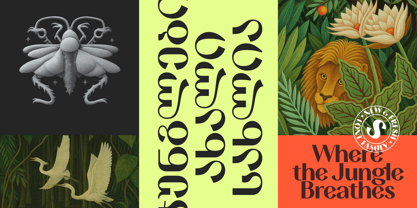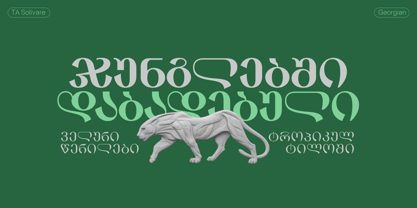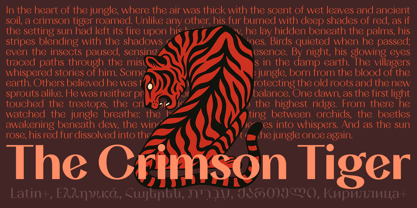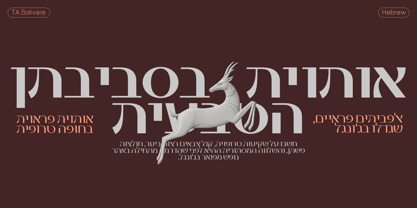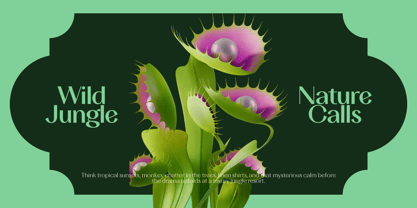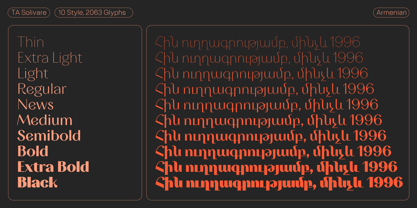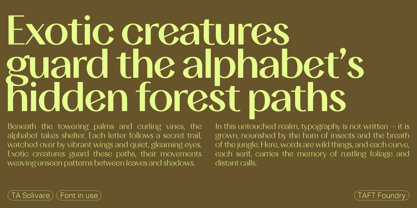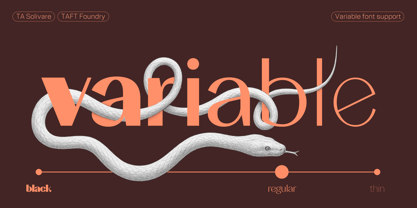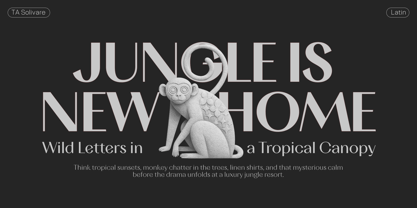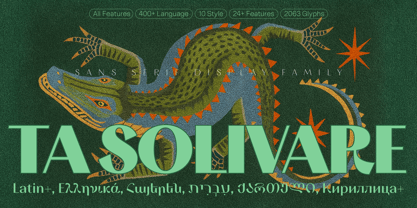
TA Solivare
by Tural Alisoy
The TA Solivare Font Family was designed by Tural Aliyev and published by Tural Alisoy. TA Solivare contains 11 styles and family package options.
TA Solivare is a high-contrast display typeface rooted in classical visual structure but stripped of traditional serif detailing. It features sharp angles, stable rhythm, and a clear sense of construction, making it ideal for prominent use in editorial headlines, brand identities, and cultural communication.
TA Solivare balances visual tension with restraint — offering a distinctive voice without excessive decoration. With six scripts and ten weights, it adapts well across multilingual and multidisciplinary contexts.
TA Solivare doesn’t try to be loud — but it stands firmly in place. Its tone is sharp, deliberate, and culturally adaptable. It’s not quite modern, not fully retro — but something quietly present in between. Its multi-script support gives it technical depth, while its visual rhythm adds just enough expression to make it memorable in use.
Opentype Features
– 10 styles (from Thin to Black)
– Support for 6 writing systems: Latin, Cyrillic, Greek, Hebrew, Georgian, Armenian
– 2063 glyphs
– OpenType features:
• locl — Localized Forms
• sinf — Scientific Inferiors
• sups — Superscript
• subs — Subscript
• numr — Numerator
• dnom — Denominator
• case — Case-Sensitive Forms
• pnum — Proportional Figures
• tnum — Tabular Figures
• ss01–ss15 — Stylistic Sets
• jalt — Justification Alternates
– Carefully hand-kerned
Recommended Use
– Branding & logotypes
– Editorial design (books, magazines, catalogs)
– Posters and cultural campaigns
– Art and museum identities
– Multilingual and global publishing
– Packaging and invitations
Language Support
– Latin + Latin Extended A & B
– Cyrillic (incl. Russian, Ukrainian, Bulgarian, Serbian, and Extended Cyrillic)
– Greek (default)
– Hebrew (modern characters)
– Armenian (Eastern & Western)
– Georgian (Mkhedruli and Mtavruli)